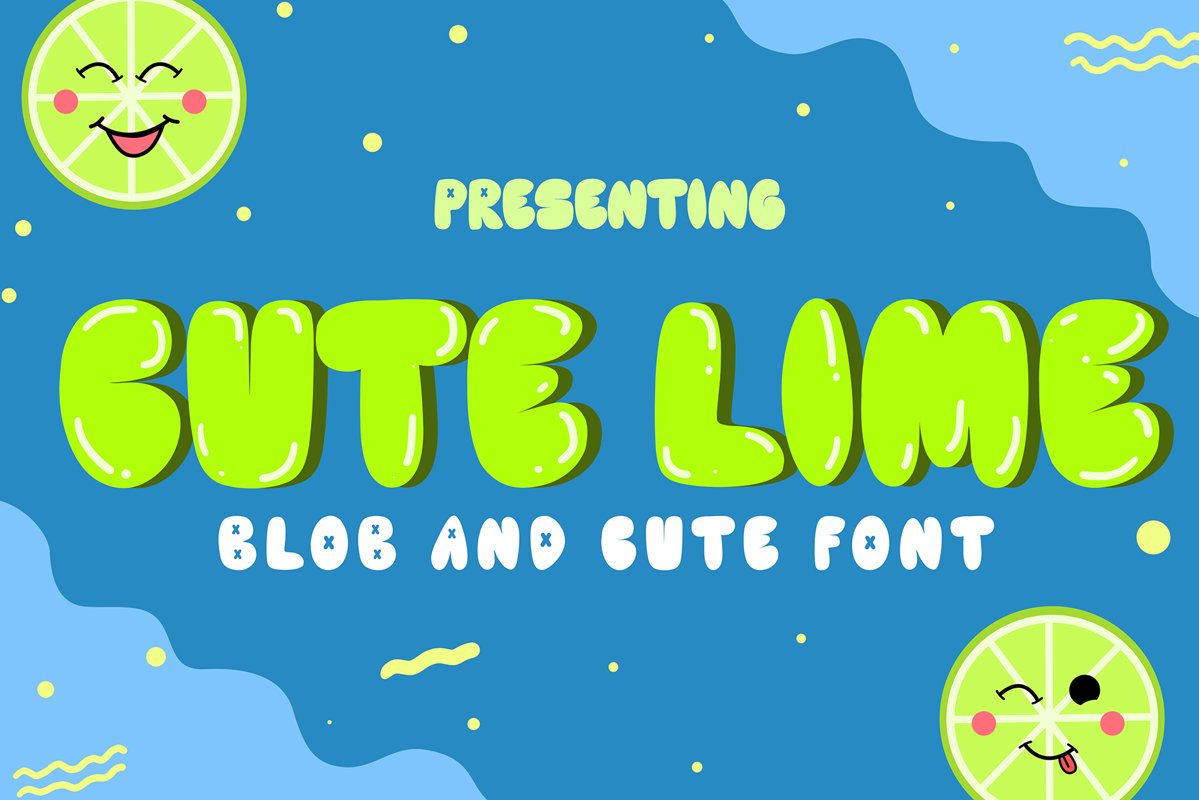
Cute Lime
Cute Lime is a bold and colorful display font. Its friendly feel makes this font incredibly versatile, fitting a wide range of contexts. Add it to your creative ideas and notice how it makes them stand out!